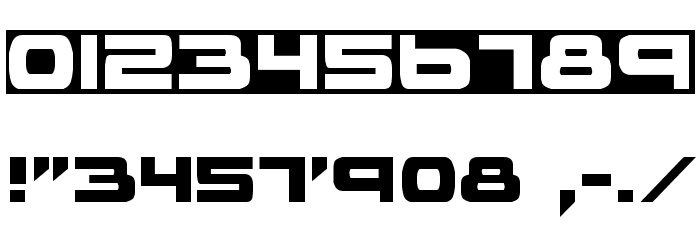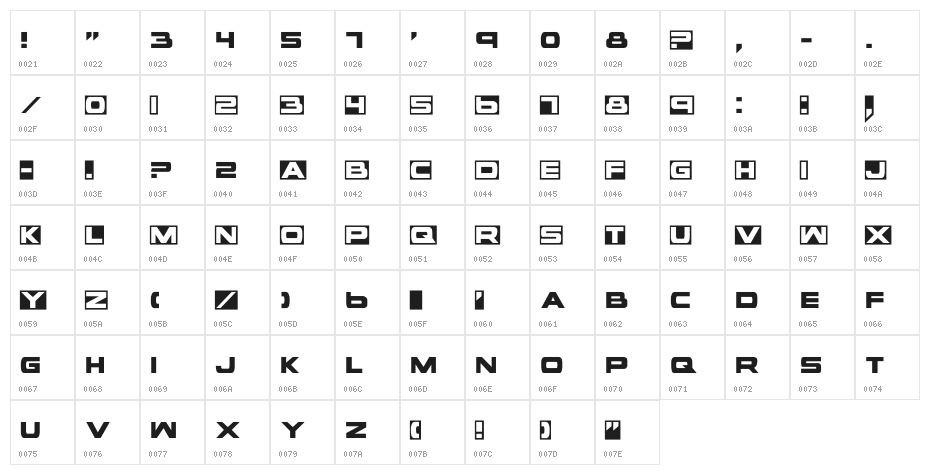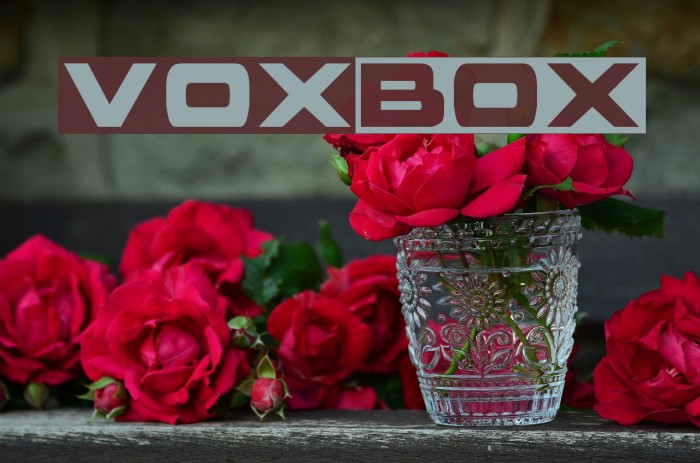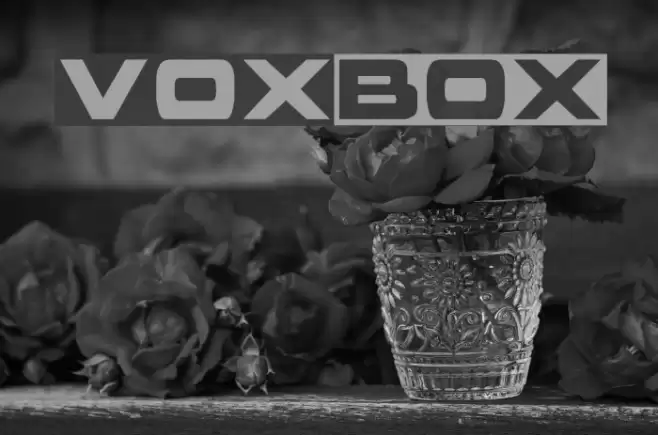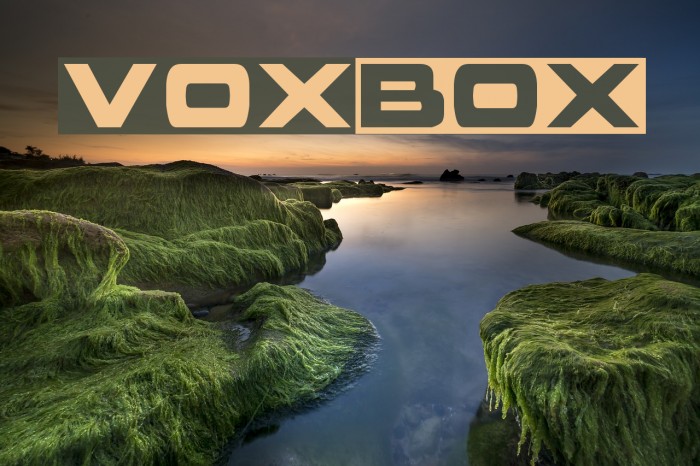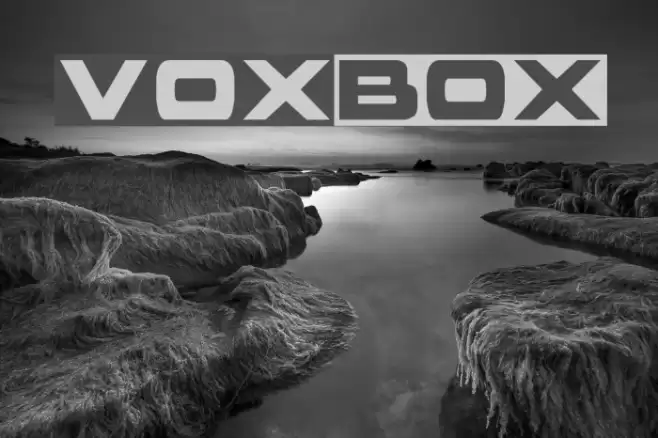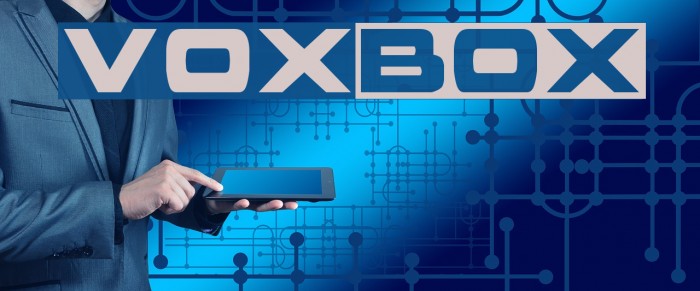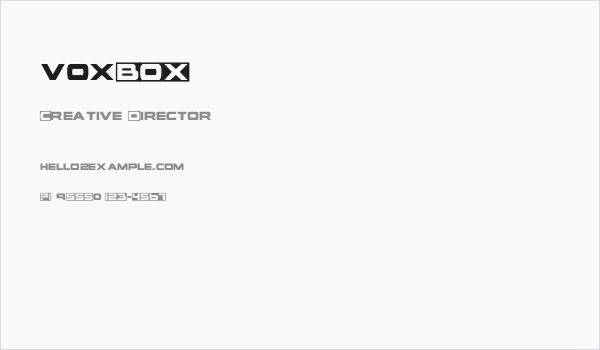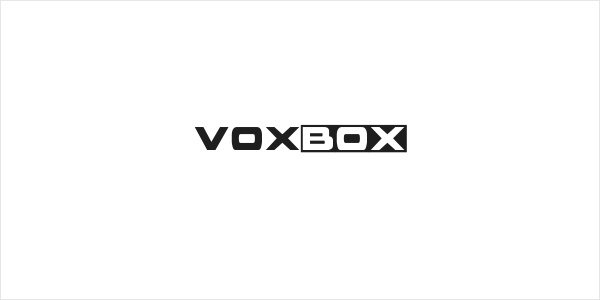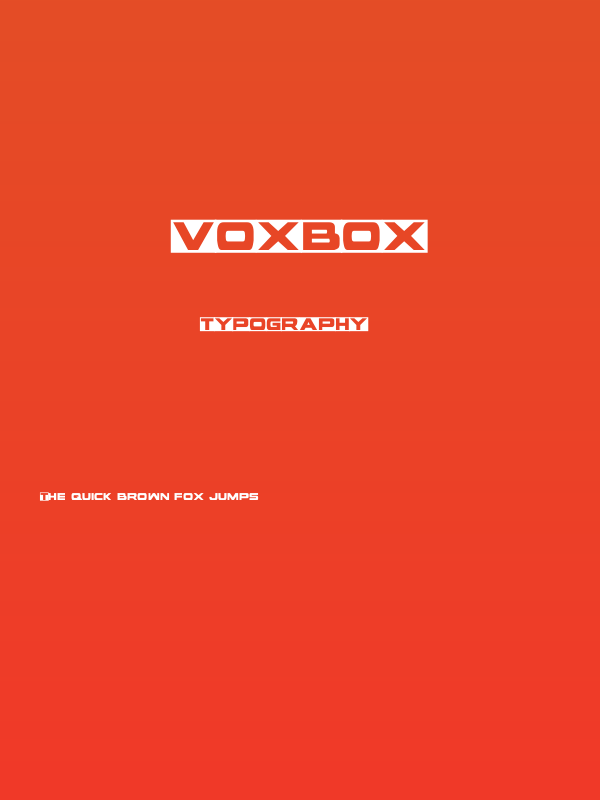
voxBOX Font
voxBOX Description
This font features a bold and geometric design with strong, angular lines and a futuristic aesthetic. The uppercase letters are blocky and wide, with a consistent height that gives a uniform appearance. The lowercase letters maintain the same boldness, offering a cohesive look across different cases. The numerals are equally bold and geometric, ensuring readability and a modern feel. Special characters are designed to match the overall style, with sharp edges and a robust presence. The font's design is ideal for projects that require a modern and impactful visual statement.
| Proposed Projects | Ideal for branding, posters, headlines, and any design that requires a strong, modern impact. |